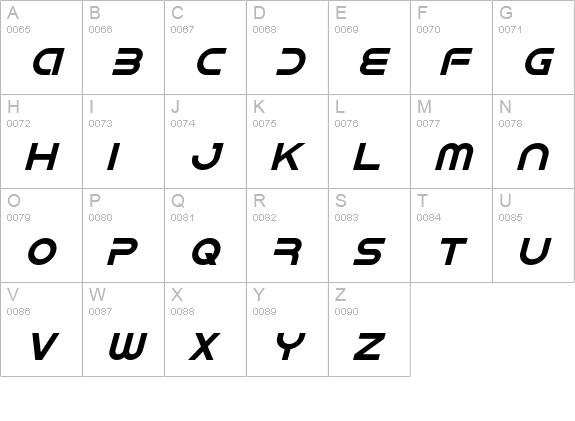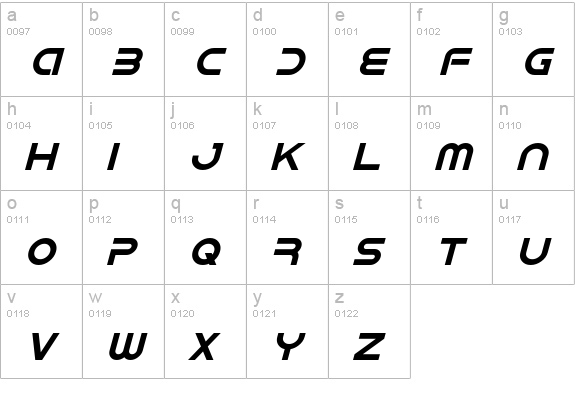
IDroid Italic Font Details
IDroid Italic is a distinctive, italic variant in the IDroid typeface family \xE2\x80\x94 well suited to design and typography projects.
IDroid Italic is a sleek and modern font that exudes elegance and sophistication. With its slanted and italicized design, this font adds a touch of style and flair to any text or design project. The smooth curves and clean lines of IDroid Italic make it perfect for creating eye-catching headlines, logos, and branding materials. What sets IDroid Italic apart is that it is not only visually stunning but also free to download. Yes, you read that right! This amazing font is freely available to download at FontsMarket.com, making it accessible to everyone, from professional designers to hobbyists. Whether you're working on a personal project or a commercial endeavor, IDroid Italic is a versatile font that will elevate your designs to the next level. Its unique and distinctive appearance will make your text stand out and leave a lasting impression on your audience. The attention to detail and craftsmanship in IDroid Italic is evident in every letterform. The precise spacing and balanced proportions ensure readability and legibility, even at smaller sizes. This font is perfect for all kinds of digital and print media, including websites, posters, flyers, and social media graphics. IDroid Italic is a font that embodies both modernity and timeless elegance. Its bold and confident look will make your designs pop and grab the attention of viewers. So why wait? Download IDroid Italic for free at FontsMarket.com and start creating visually stunning designs that leave a lasting impact.